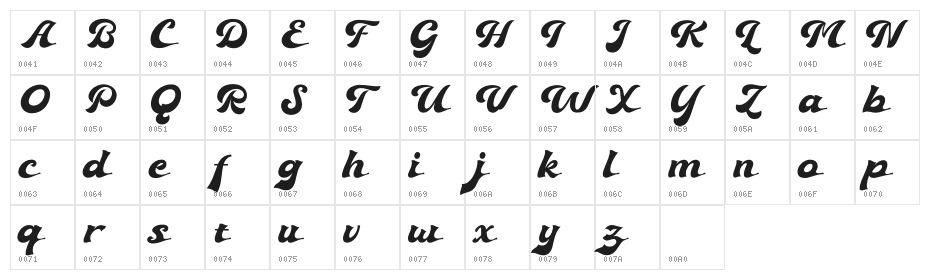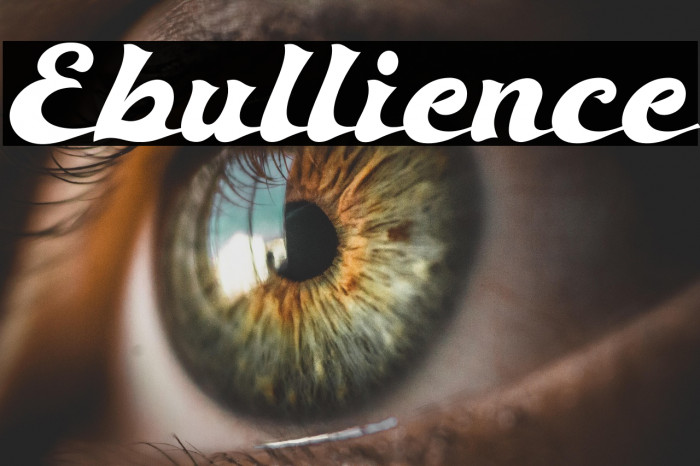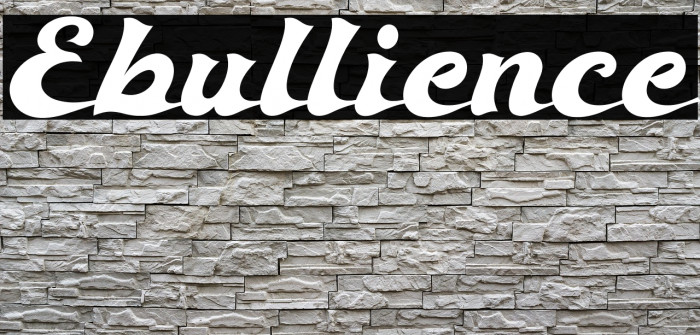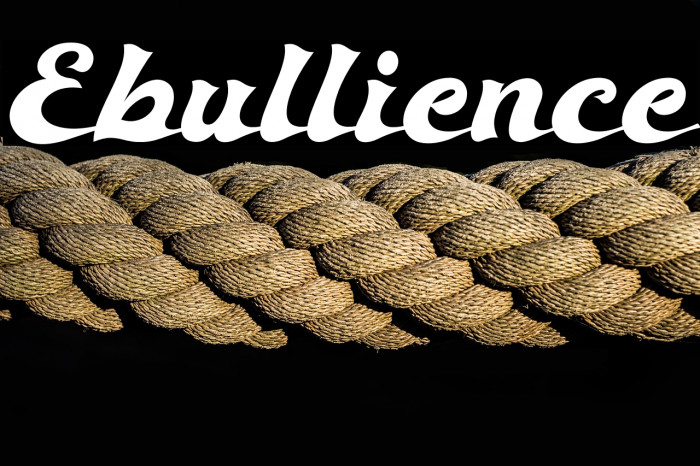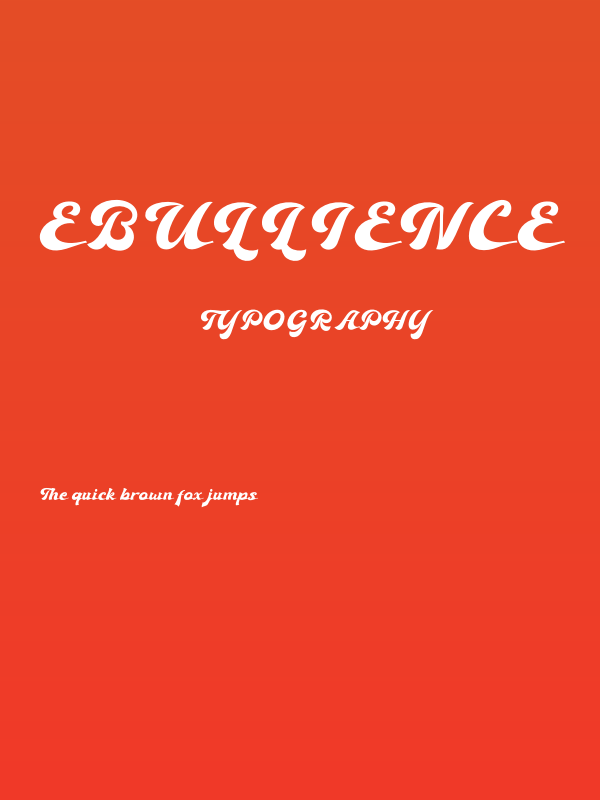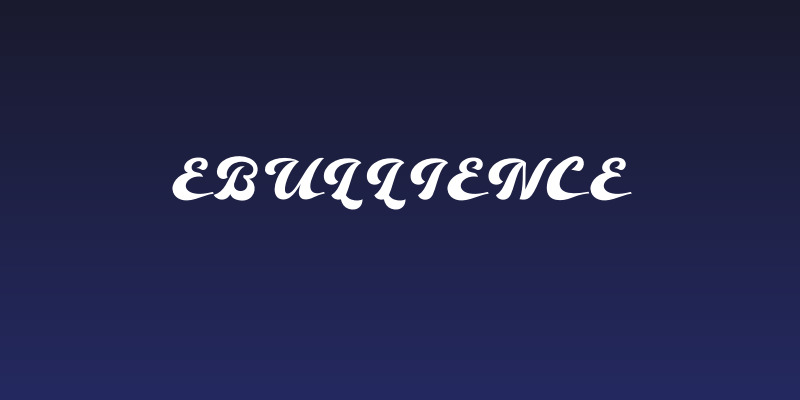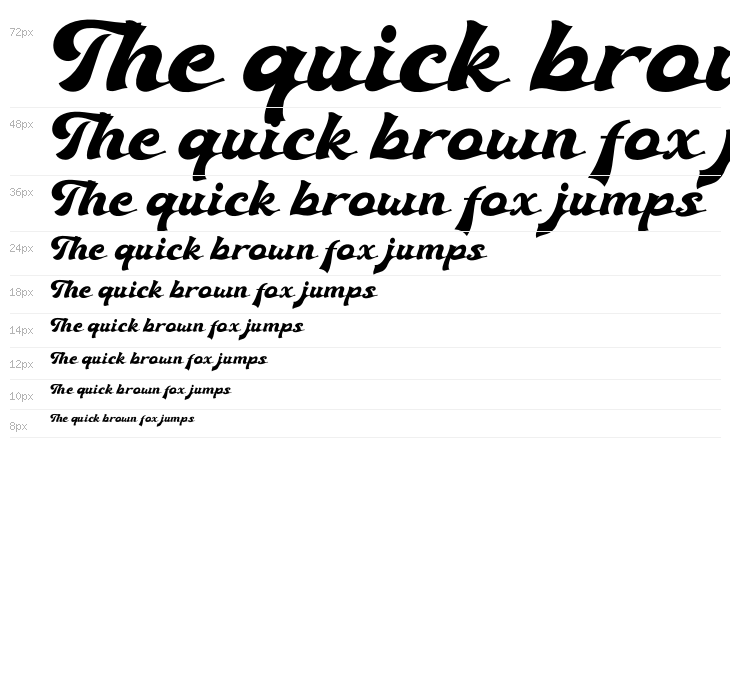
Ebullience Font
Ebullience Description
This font features a bold, flowing script style that exudes elegance and sophistication. The characters are connected, with smooth curves and a consistent stroke width that gives it a cohesive appearance. The uppercase letters are slightly larger and more ornate, while the lowercase letters maintain a consistent height, enhancing readability. The font lacks special characters, focusing on the alphabet, which makes it ideal for decorative purposes. Its bold presence makes it suitable for attention-grabbing headlines or titles.
| Proposed Projects | Ideal for wedding invitations, elegant branding, and decorative headlines. |